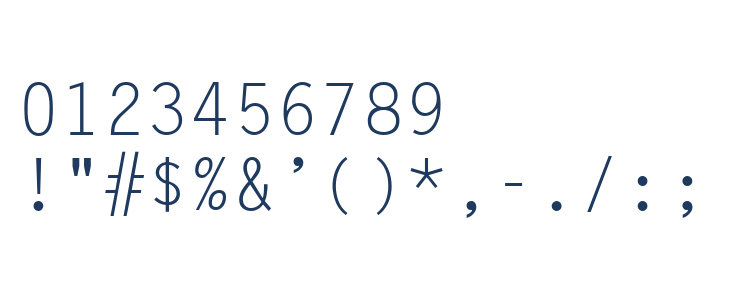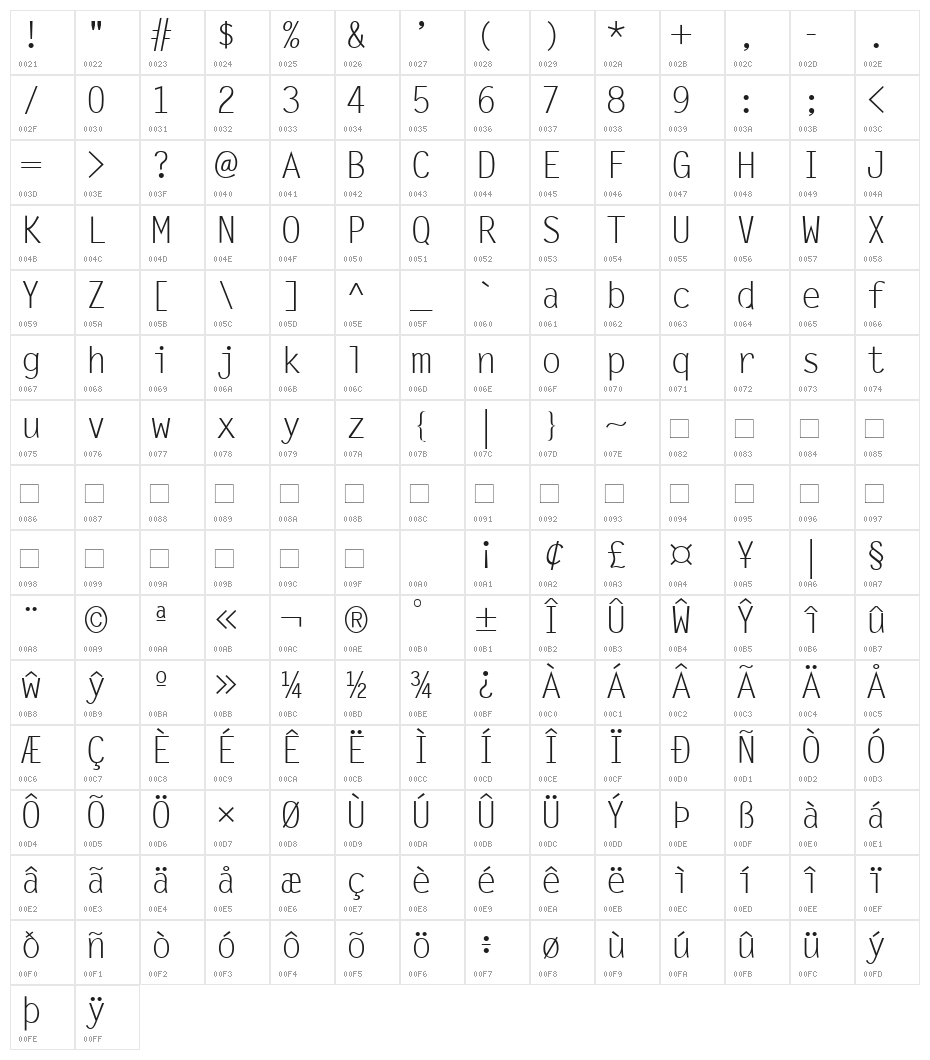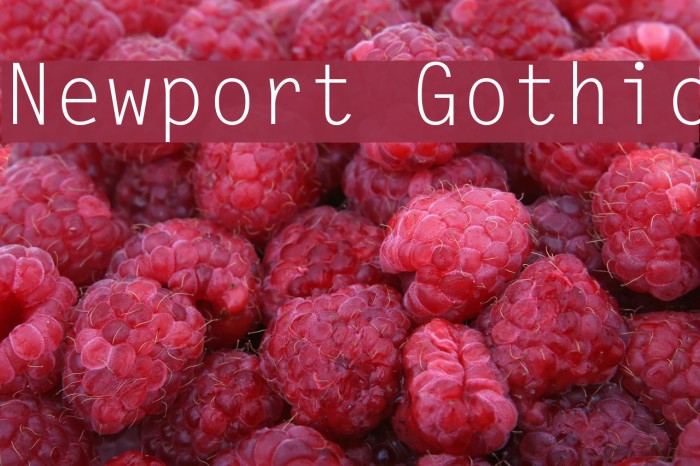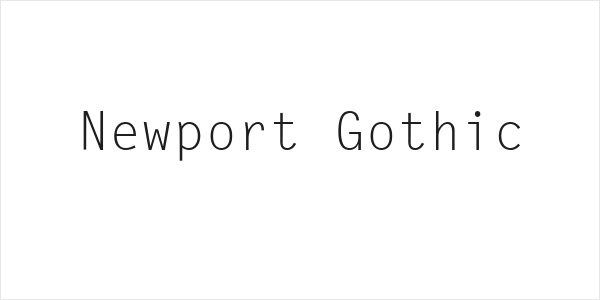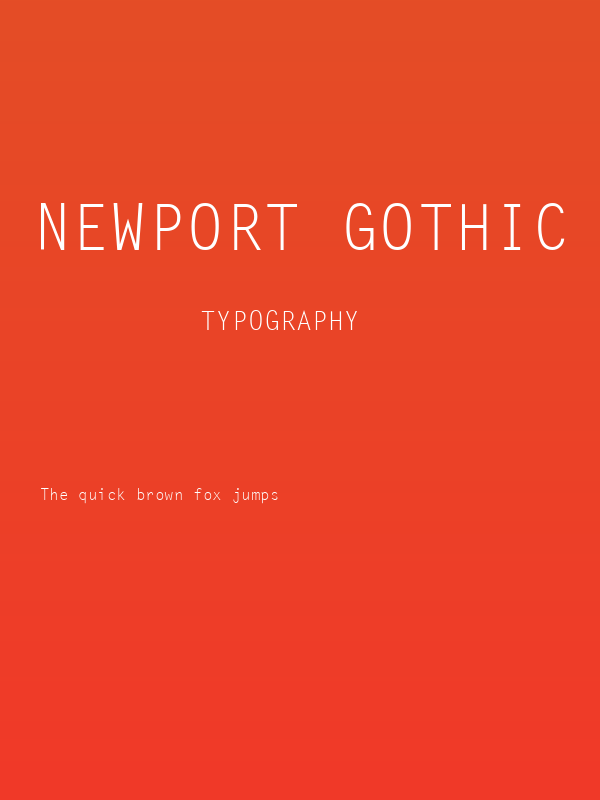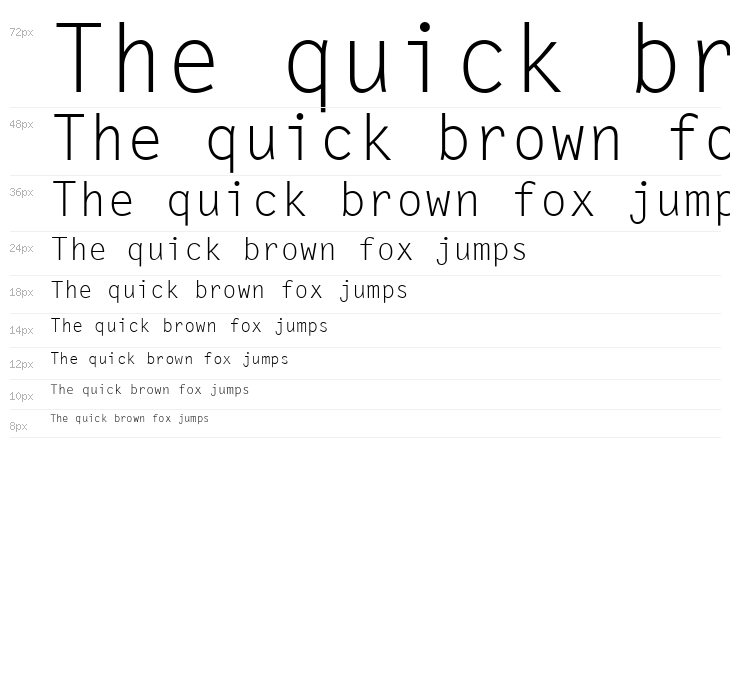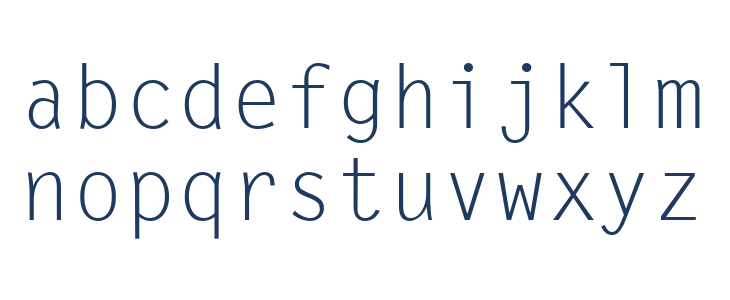
Newport Gothic Font
Newport Gothic Description
This font features a clean and modern sans-serif design with a geometric structure. The characters are uniform in width, providing a balanced and harmonious appearance. The uppercase letters are tall and slightly condensed, while the lowercase letters maintain a consistent height, enhancing readability. The numerals are clear and distinct, making them suitable for various applications. Special characters are well-integrated, maintaining the overall aesthetic of the font. The stroke weight is consistent, offering a sleek and professional look.
| Proposed Projects | Ideal for branding, web design, editorial layouts, and signage due to its clarity and modern appeal. |